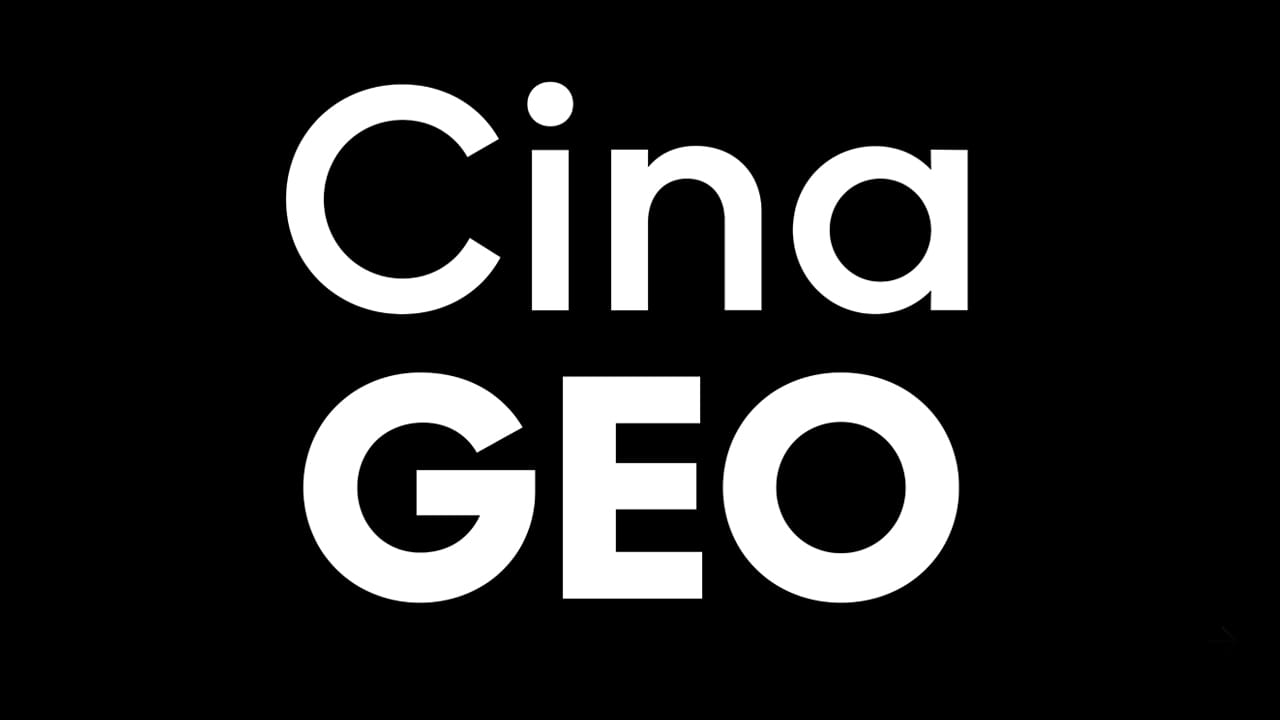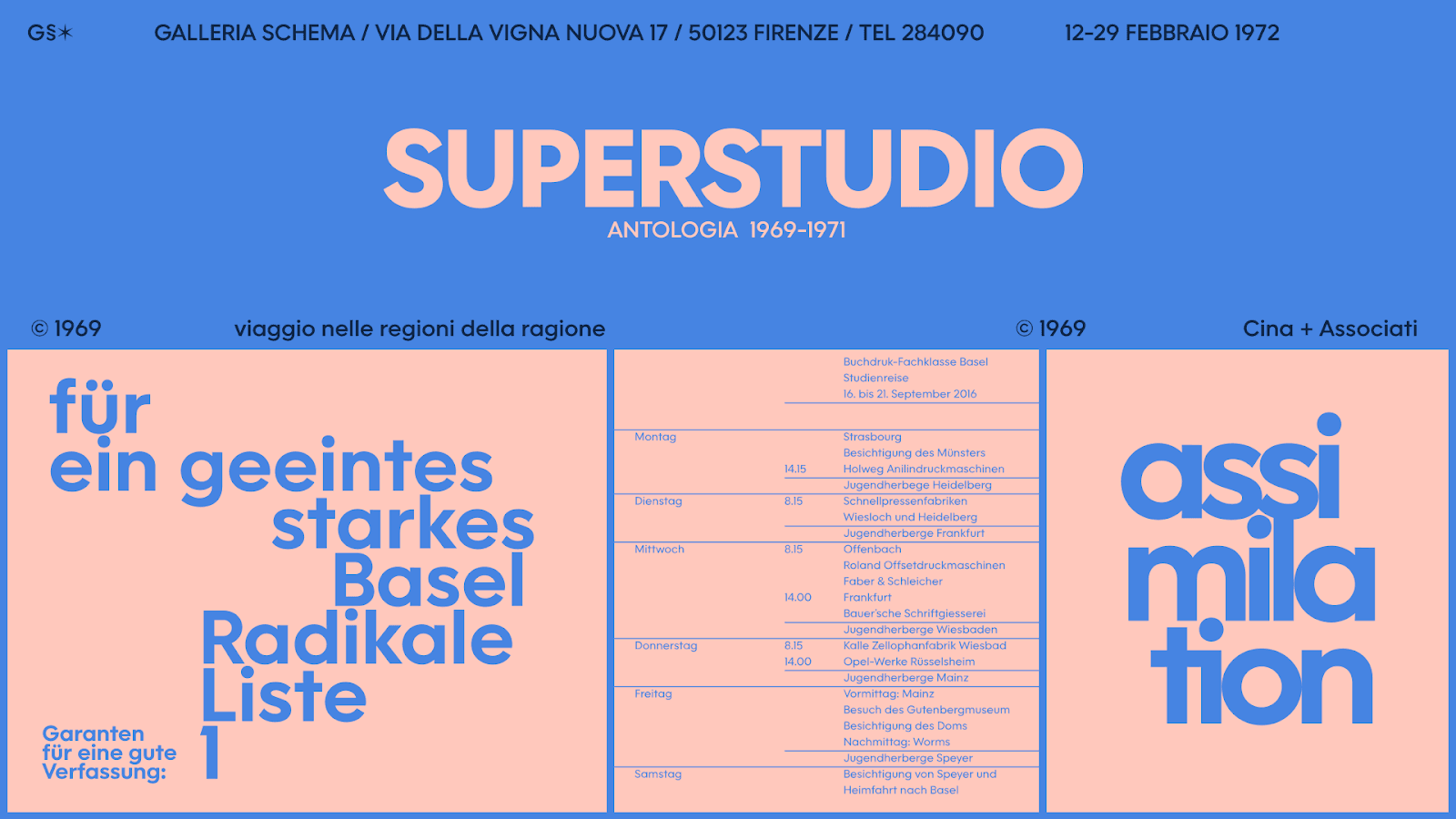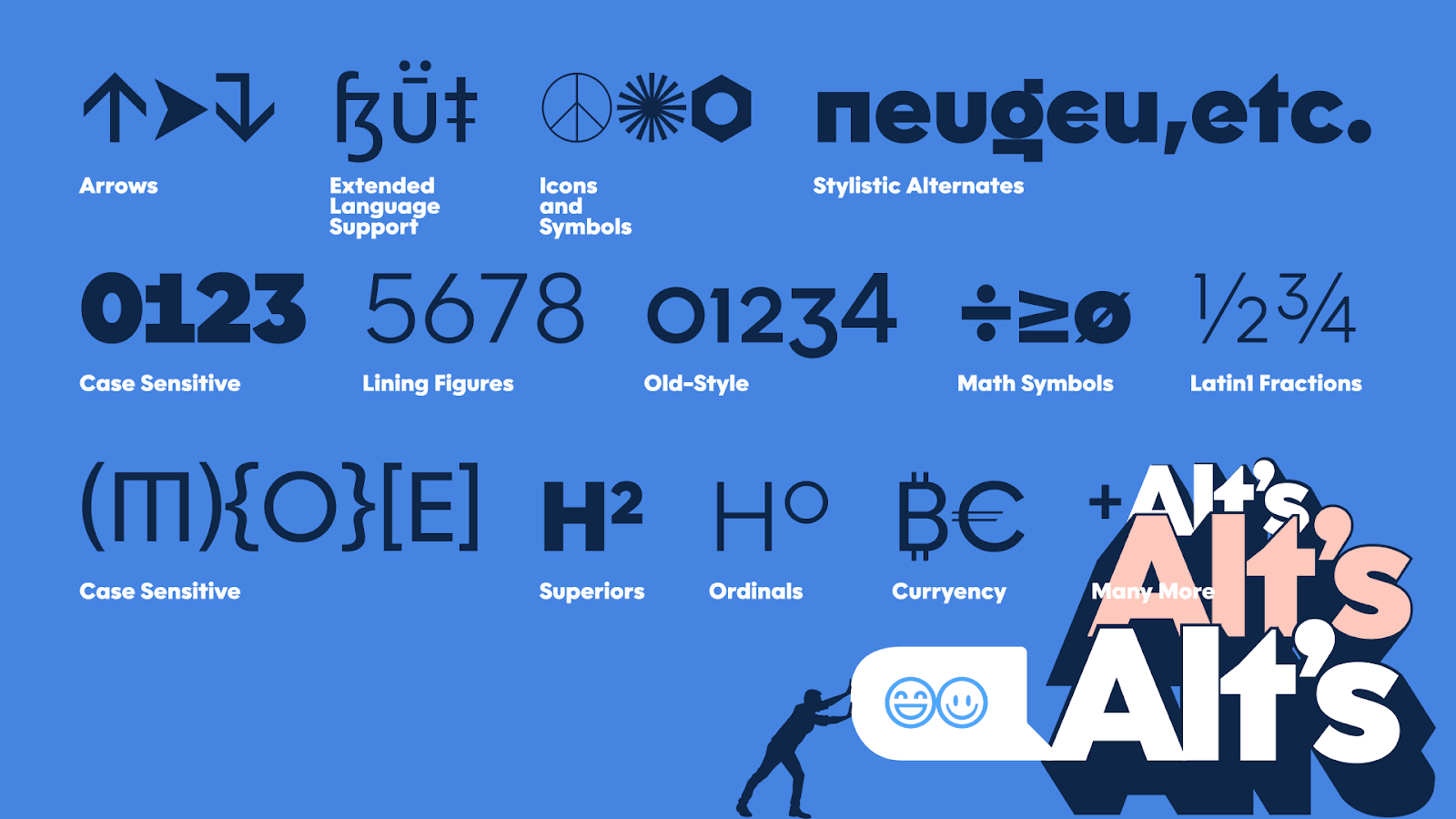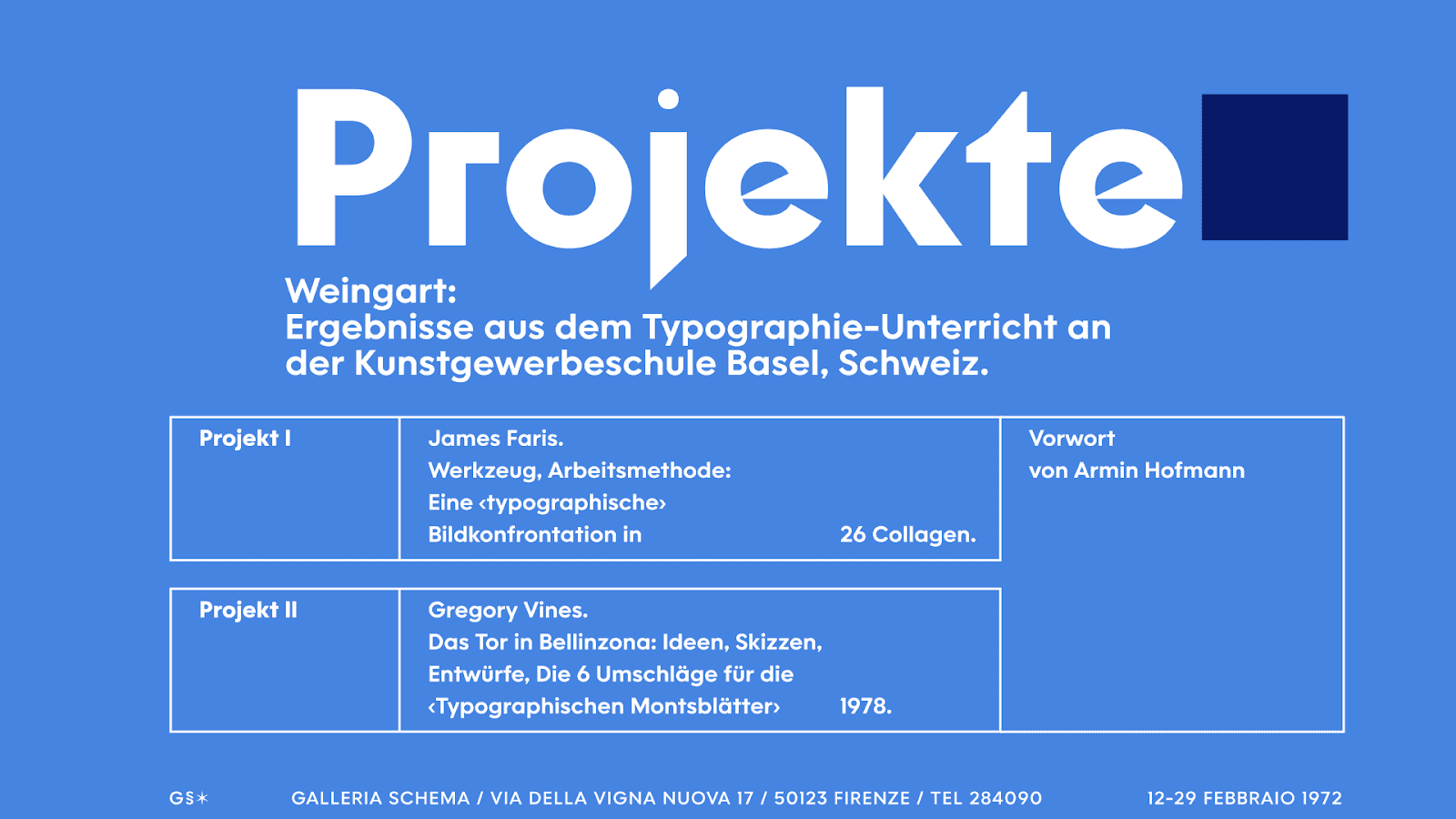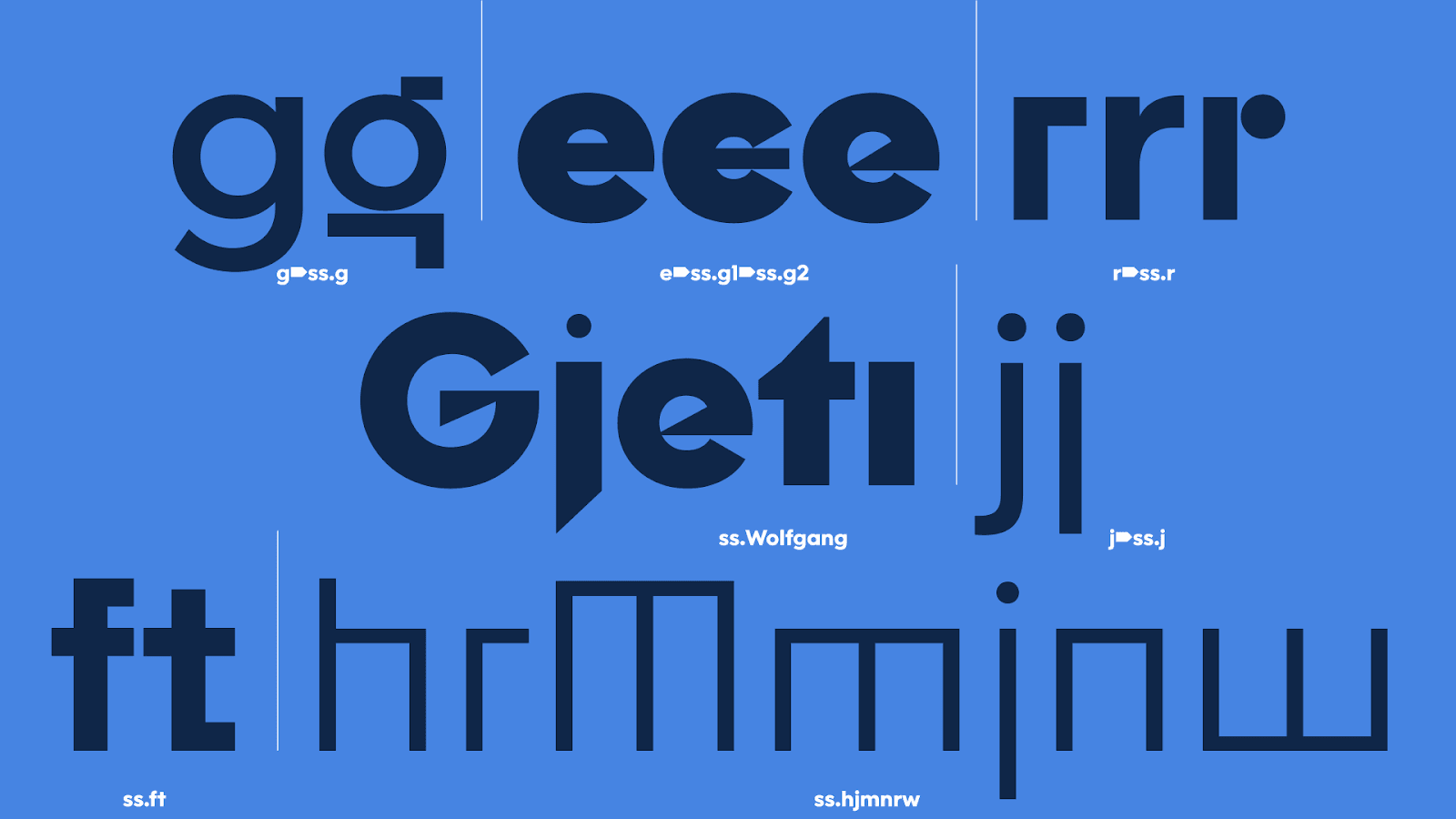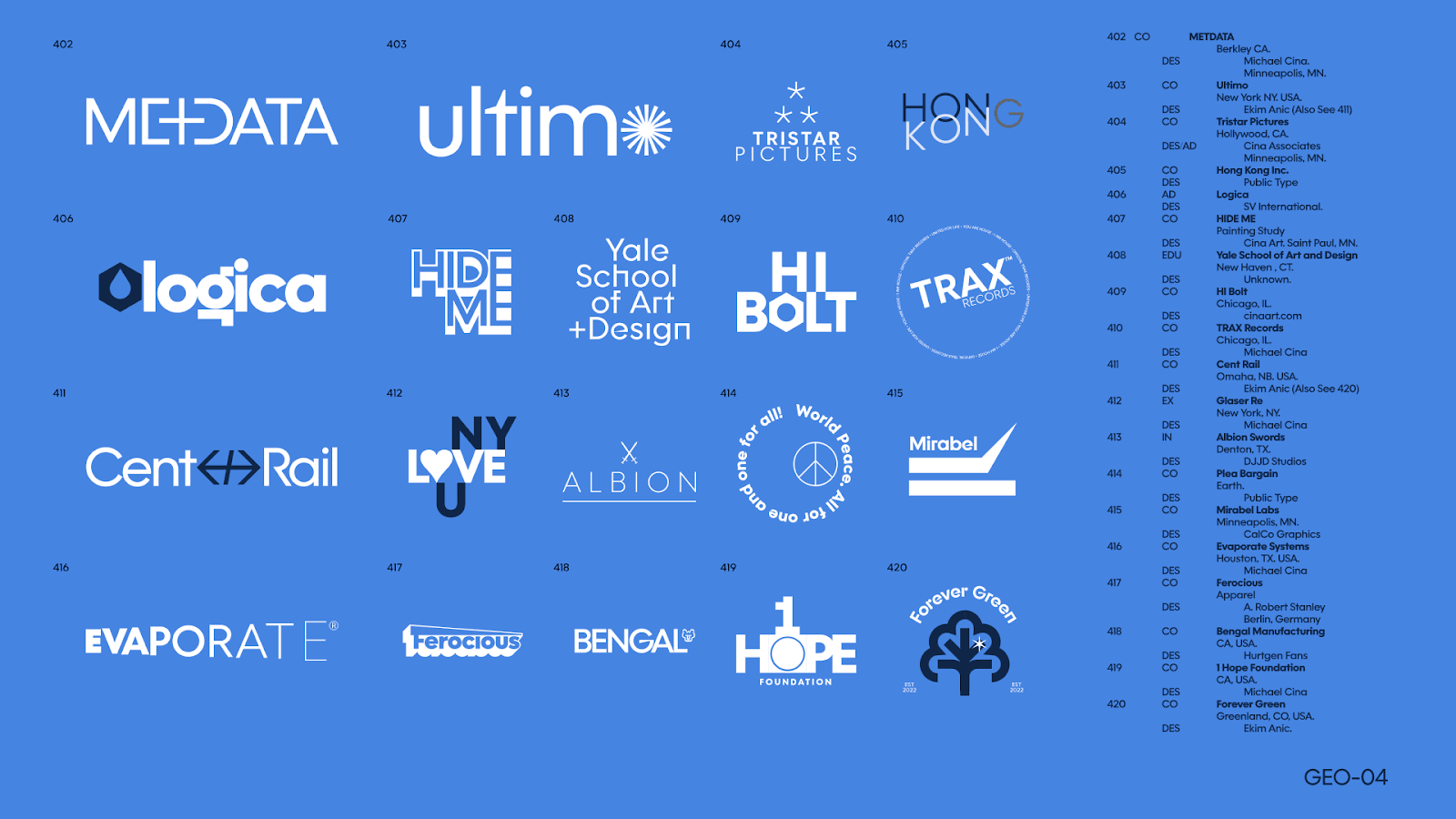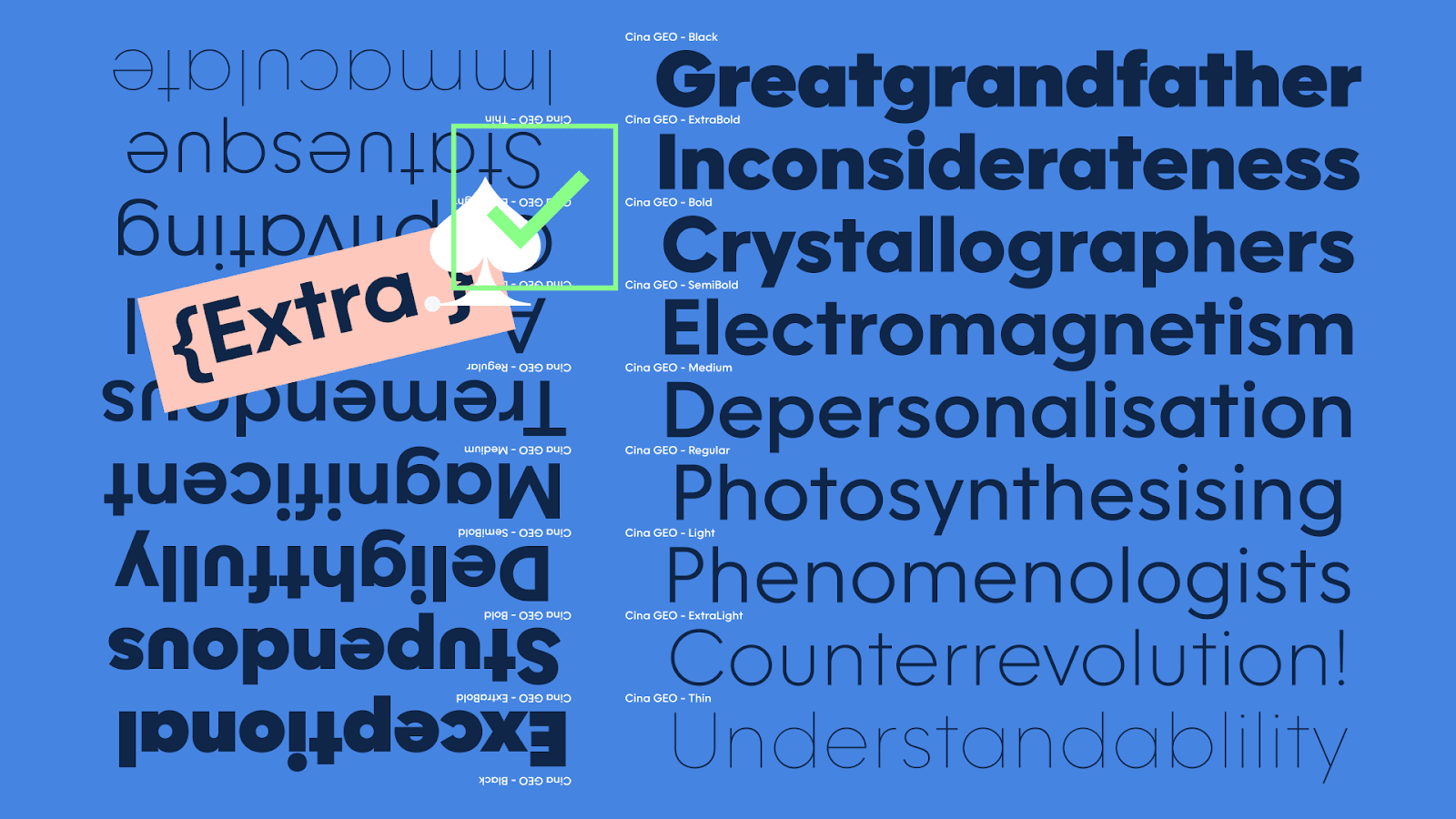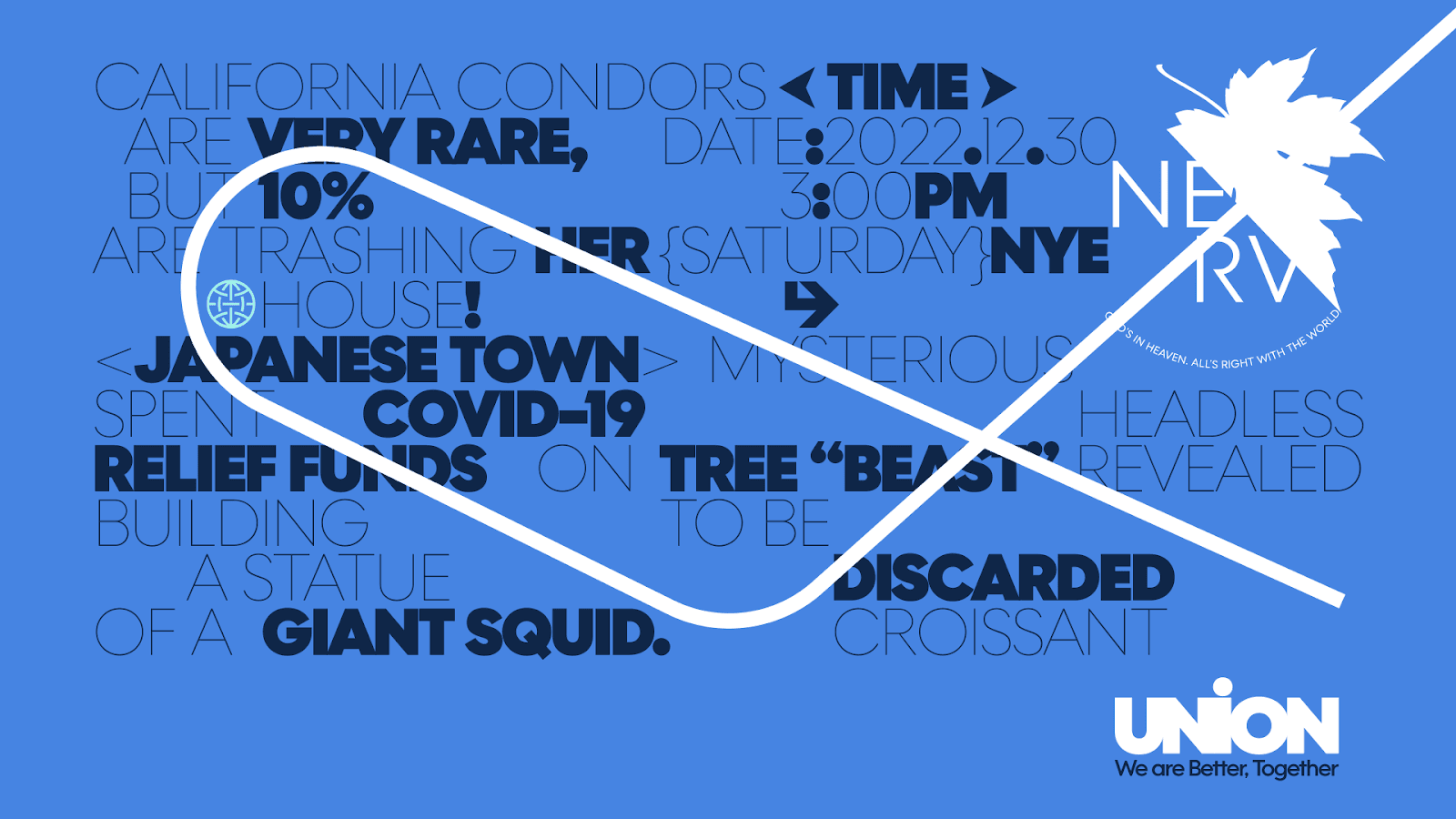
Cina GEO Typeface Family (Free Download)
Cina GEO Typeface Family is a modern font style designed with 9 styles from Thin to Black. The font is impressively designed to be used for both short and long texts. Suitable for many different designs such as magazines, newspapers, books, titles, logo…With a high degree of customization in each font so you can easily use them in any design project. In addition, the special designs of Cina GEO will bring their own and different impressions compared to other fonts.